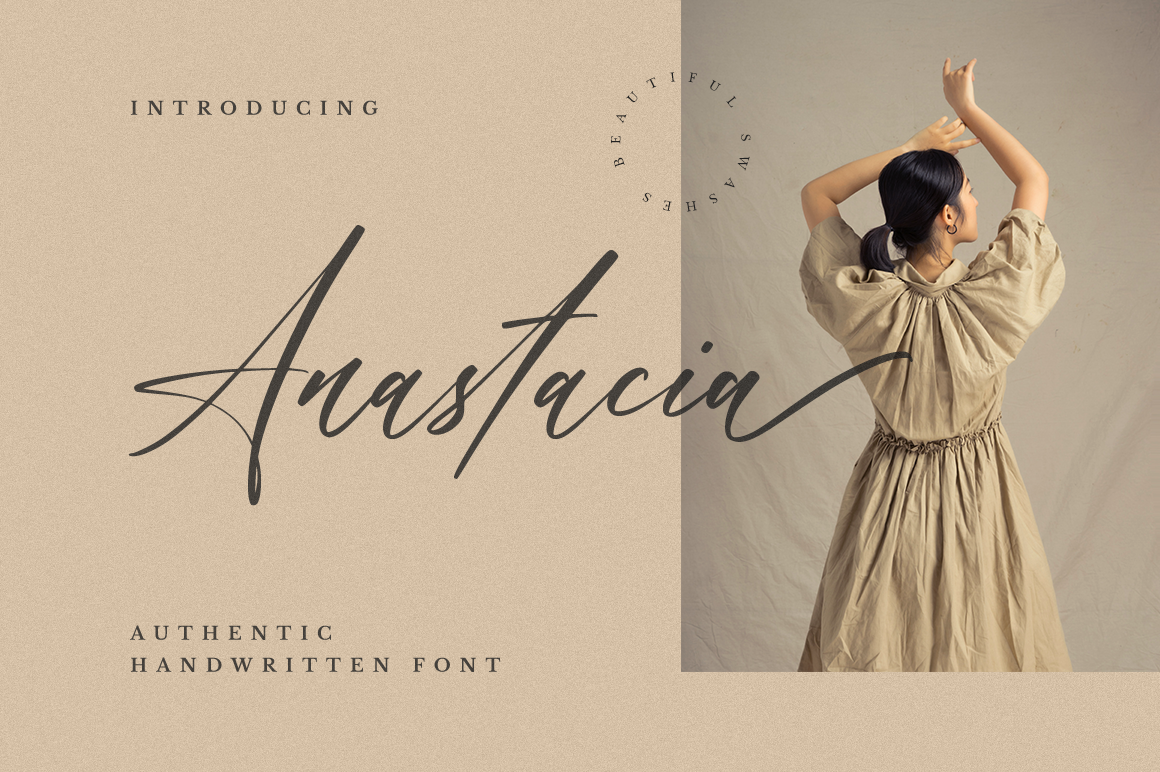
Handwritten Font
Anastacia is an authentic handwritten font that is suitable for branding, signature, quotes, wedding invitations, product packaging, and more. Anastacia font is looking natural and aesthetic. You will get a full set of lowercase and uppercase letters, numerals and punctuation, multilingual, ligatures, and swashes.